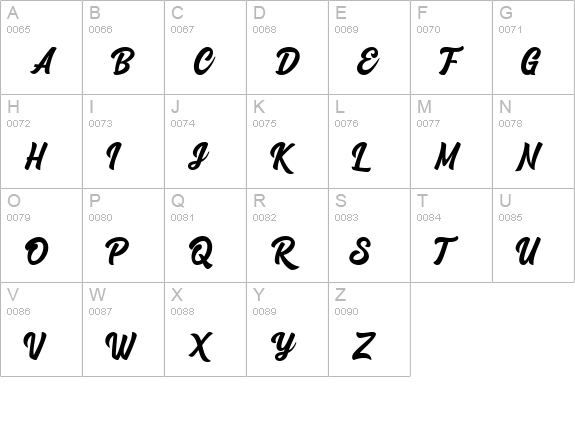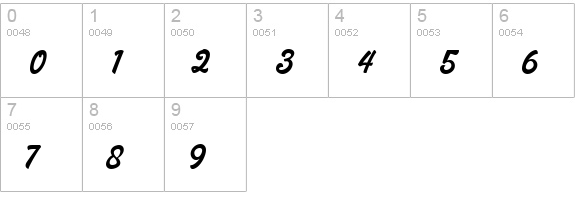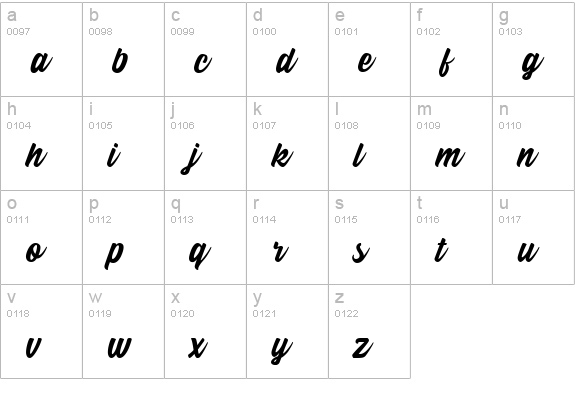
December Font Details
Introducing December Font, a stunning typeface that embodies elegance and sophistication. With its sleek lines and modern design, December Font is perfect for adding a touch of class to any project. This versatile font is suitable for a wide range of applications, from branding and advertising to invitations and packaging.